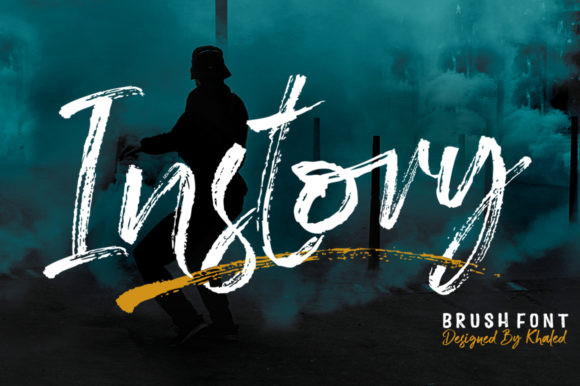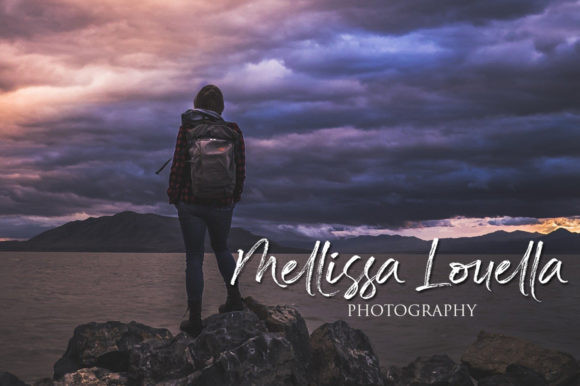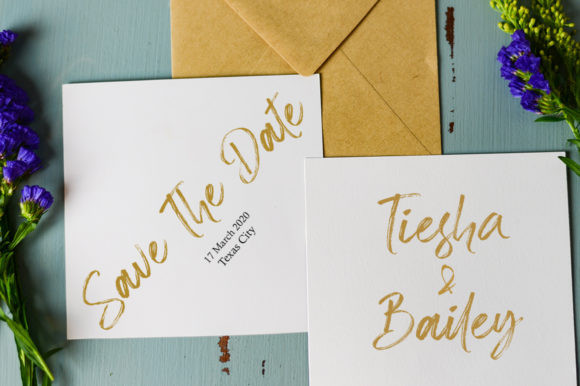
Instory Font
Instory is a raw and unfiltered dry brush script that bursts with energy. Get inspired by its authentic charm, and use it for any design project in need of that extra dash of personality!